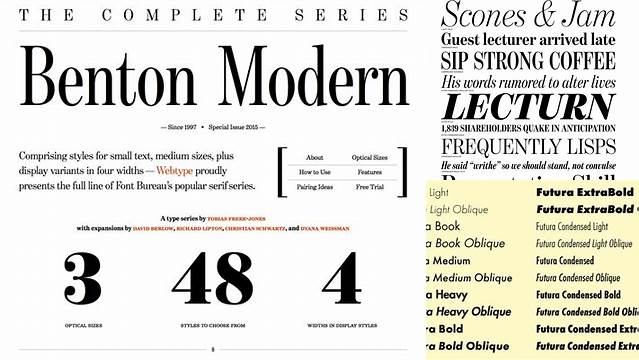
Benton Modern font family is a timeless classic, celebrated for its elegance, readability, and versatility. If you're on the hunt for Benton Modern font family free download options, you've landed in the right spot. This article dives deep into everything you need to know about this iconic typeface, including its history, key features, best uses, and, most importantly, where to find legitimate free download resources. So, let's get started, guys!
What is Benton Modern Font Family?
Let’s dive into what makes Benton Modern a design staple, shall we? Benton Modern font family isn't just another typeface; it's a piece of typographic history. Originally designed by Morris Fuller Benton in the early 20th century, it was intended as a modern revival of the 19th-century typeface known as Scotch Roman. Benton's genius lies in his ability to blend the traditional with the contemporary, resulting in a font that feels both familiar and fresh. Its clean lines, balanced proportions, and subtle serifs make it incredibly readable, which is why it has been a favorite in print media for decades. Over time, this classic has seen various iterations and digital adaptations, ensuring its relevance in the modern design landscape. When you choose Benton Modern, you're not just selecting a font; you're opting for a legacy of craftsmanship and typographic excellence. It’s a font that speaks volumes, whether you’re crafting a corporate document, designing a website, or creating eye-catching marketing materials. The versatility of Benton Modern is one of its strongest assets, making it a go-to choice for designers who need a reliable and elegant typeface that performs well in a variety of contexts. Its legibility is unmatched, ensuring that your message is conveyed clearly and effectively, whether in print or on screen. The font's classic roots also lend a sense of authority and sophistication to any project, making it a perfect choice for branding and identity work. Moreover, the Benton Modern font family offers a range of weights and styles, allowing for creative flexibility and ensuring that you can find the perfect variation to suit your needs. Whether you need a bold weight for headlines or a lighter weight for body text, Benton Modern has you covered. This adaptability makes it an invaluable tool in any designer's toolkit, guaranteeing that you can maintain a consistent and professional look across all your materials. So, if you’re aiming for a typeface that combines history, elegance, and practicality, Benton Modern is undoubtedly a top contender.
Key Features of Benton Modern
Okay, so what makes Benton Modern stand out from the crowd? Let’s break down its key features. First off, the font's legibility is top-notch. Seriously, it's designed to be easy on the eyes, whether you're reading a long article or just a quick headline. This makes it perfect for everything from books and magazines to websites and apps. The clean lines and balanced letterforms ensure that each character is distinct and clear, reducing eye strain and improving the overall reading experience. Another key feature is its versatility. Benton Modern isn’t a one-trick pony; it can adapt to a wide range of design needs. Whether you’re working on a formal corporate document or a creative marketing campaign, this font can fit right in. It has a timeless quality that works well in both traditional and modern contexts, making it a reliable choice for any project. Plus, the various weights and styles available within the family mean you can play around with different looks and feels without having to switch fonts altogether. This makes it incredibly convenient for designers who want to maintain a consistent aesthetic across their materials. The subtle serifs add a touch of elegance and sophistication, making it suitable for projects that require a professional and polished look. In addition to its aesthetic qualities, Benton Modern is also technically sound. It’s well-hinted for optimal rendering on screens, ensuring that it looks crisp and clear even at smaller sizes. This is crucial for digital design, where readability can be compromised by pixelation or blurring. The careful attention to detail in its design means that it performs beautifully across different media, from print to web. The flexibility of Benton Modern also extends to its language support. It typically includes a wide range of characters and glyphs, allowing it to be used in multiple languages without any issues. This is a significant advantage for designers working on international projects or materials that need to be translated. The comprehensive character set ensures that your message can be conveyed accurately and effectively, regardless of the language. So, all in all, Benton Modern’s combination of legibility, versatility, and technical excellence makes it a standout choice for any design project. It's a font that truly delivers on all fronts, ensuring that your work looks professional and polished.
Best Uses for Benton Modern
Now, let's talk about where Benton Modern really shines. Where can you put this font to work? Well, given its blend of classic elegance and modern readability, it’s incredibly versatile. Think about publications: books, magazines, and newspapers are all prime territory for Benton Modern. Its readability makes it a great choice for long-form text, ensuring that readers can comfortably engage with the content. The clean lines and balanced letterforms reduce eye strain, making it an ideal option for extended reading sessions. In the world of branding and corporate identity, Benton Modern can lend a sense of sophistication and authority. It's a fantastic choice for logos, business cards, and other marketing materials where you want to project a professional image. The timeless quality of the font ensures that your brand identity remains relevant and stylish for years to come. It's a subtle yet powerful way to communicate credibility and trustworthiness. Moving on to web design, Benton Modern is a solid pick for body text and headings alike. Its excellent on-screen rendering means it stays crisp and clear, even at smaller sizes. This is crucial for ensuring a positive user experience, as readability is paramount on the web. The font's adaptability also means it can fit seamlessly into a variety of website designs, from minimalist layouts to more complex structures. Plus, the various weights and styles available within the family provide flexibility in creating visual hierarchy and emphasis. Then there's editorial design. Think brochures, newsletters, and reports. Benton Modern can help you create layouts that are both visually appealing and easy to navigate. Its clean and balanced appearance ensures that your message is conveyed clearly and effectively, while its subtle elegance adds a touch of sophistication. The font's versatility allows you to use it for both headlines and body text, creating a cohesive and professional look. And let's not forget about advertising. Whether you're crafting print ads or digital banners, Benton Modern can help your message stand out. Its readability ensures that your copy is easily understood, while its classic style adds a touch of credibility. The font's ability to work well in a variety of contexts makes it a valuable tool for creating effective advertising campaigns. So, whether you're working on print or digital projects, Benton Modern is a font that can deliver excellent results across a wide range of applications. Its versatility and timeless appeal make it a valuable addition to any designer's toolkit.
Alternatives to Benton Modern
Okay, so maybe you're having a tough time finding a free download of Benton Modern, or perhaps you're just curious about other fonts that offer a similar vibe. No worries, guys! There are plenty of alternatives out there that can give you that classic, readable look. Let's dive into some excellent alternatives to Benton Modern that you might want to check out. First up, we have Publico. This is a fantastic option if you're looking for something with a similar level of legibility and a slightly more contemporary feel. Publico was designed specifically for newspaper use, so you know it's built for long-form reading. Its clean lines and sturdy letterforms make it a great choice for both print and digital projects. It's also incredibly versatile, working well in everything from headlines to body text. Another solid alternative is Source Serif Pro. This font, designed by Adobe, is part of the Source family, which also includes the popular Source Sans Pro. Source Serif Pro offers a classic serif look with a modern twist, making it a great choice for a wide range of applications. Its open letterforms and generous spacing enhance readability, while its elegant design adds a touch of sophistication. Plus, it's an open-source font, so it's completely free to use! If you're after something with a bit more personality, you might want to consider Merriweather. This font is known for its slightly condensed letterforms and robust serifs, giving it a distinctive and memorable appearance. Merriweather is designed to be readable on screens, making it a great choice for websites and digital publications. Its unique character makes it stand out while still maintaining a high level of legibility. Another alternative worth exploring is Roboto Serif. As part of the Roboto family, this font inherits the clean and modern aesthetic of its sans-serif counterpart while adding the classic touch of serifs. Roboto Serif is highly versatile and works well in both print and digital contexts. Its balanced design and excellent rendering on screens make it a reliable choice for a variety of projects. And let's not forget about Lora. This well-balanced serif typeface has roots in calligraphy, giving it a slightly more artistic and elegant feel. Lora is designed to be comfortable to read both in print and online, making it a great option for blogs, magazines, and other content-rich websites. Its refined appearance adds a touch of class to any project. So, if you're looking for alternatives to Benton Modern, you've got plenty of great options to choose from. Whether you're after something classic, contemporary, or with a bit of unique flair, there's a font out there that will fit your needs. Explore these alternatives and see which one works best for your project!